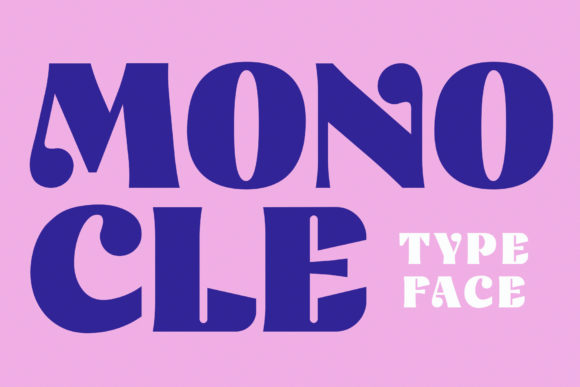
Introducing Monocle Font, the captivating display typeface that commands attention and leaves a lasting impression. This bold and vintage font exudes an air of authority, making it the perfect choice for creating eye-catching headlines, logos, and more.
Immerse yourself in the world of Monocle, where every letter is a masterpiece. Its distinct thick strokes evoke a sense of nostalgia and authenticity, transporting you back to an era of classic design. Monocle is not just a font; it's a statement piece that transforms ordinary text into extraordinary art.
Unleash your creativity with Monocle, the font that empowers you to make a bold statement. Whether you're designing a captivating poster, crafting a memorable logo, or creating a stunning book cover, Monocle will elevate your designs to new heights.
Experience the versatility of Monocle, a font that seamlessly adapts to a wide range of design projects. Its bold presence makes it ideal for large-scale applications, where it demands attention and captivates audiences. Yet, Monocle's charm extends to smaller text strings, where it adds a touch of sophistication and intrigue.
Indulge in the timeless appeal of Monocle, a font that transcends trends and remains a favorite among discerning designers. Its classic vintage style resonates with a modern audience, creating designs that stand the test of time.
Let Monocle be your secret weapon for capturing attention and making an unforgettable impact. Its bold strokes and vintage charm will transform your designs into captivating masterpieces that leave a lasting legacy.